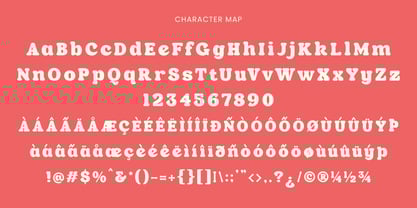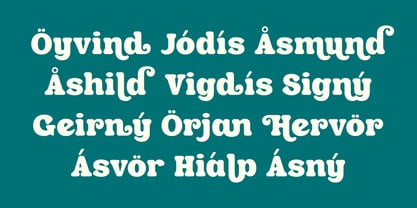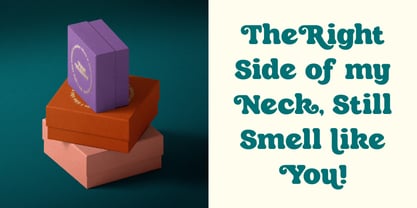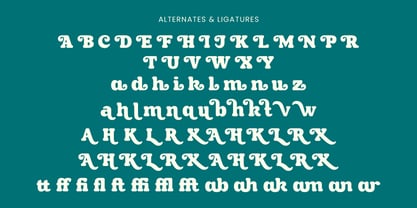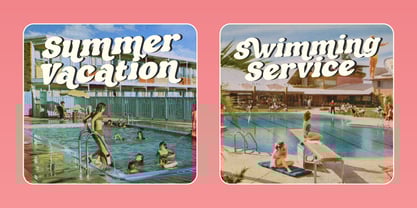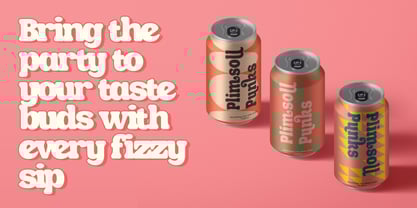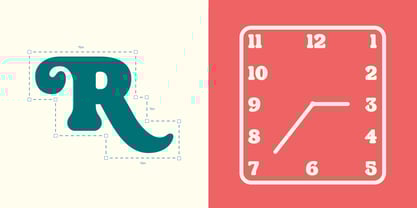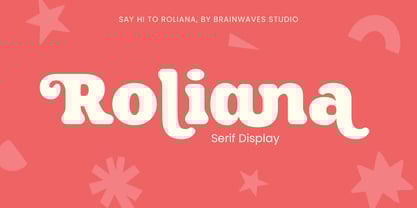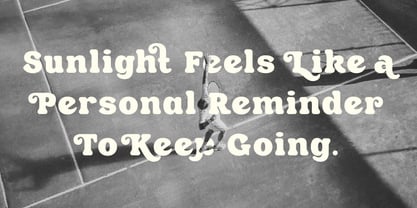
Roliana
by Brainwaves Studio
The Roliana Font Family was designed by Lucky Fitriadi and published by Brainwaves Studio. Roliana contains 2 styles.
Roliana — A Fresh, Playful Serif
Roliana is a vibrant serif display font designed to bring a smile to your projects. With its soft curves, playful swashes, and bold yet friendly feel, Roliana adds a warm, nostalgic vibe while keeping things modern and approachable. Inspired by retro joy and everyday moments, it's perfect for anyone who wants their design to feel lively, memorable, and a little bit magical.
Whether you're crafting colorful packaging, joyful social media posts, retro-inspired posters, or creative branding projects, Roliana’s expressive characters and alternates make it easy to create layouts full of charm and energy. From summer campaigns to lifestyle branding, Roliana is here to turn simple words into a visual celebration.